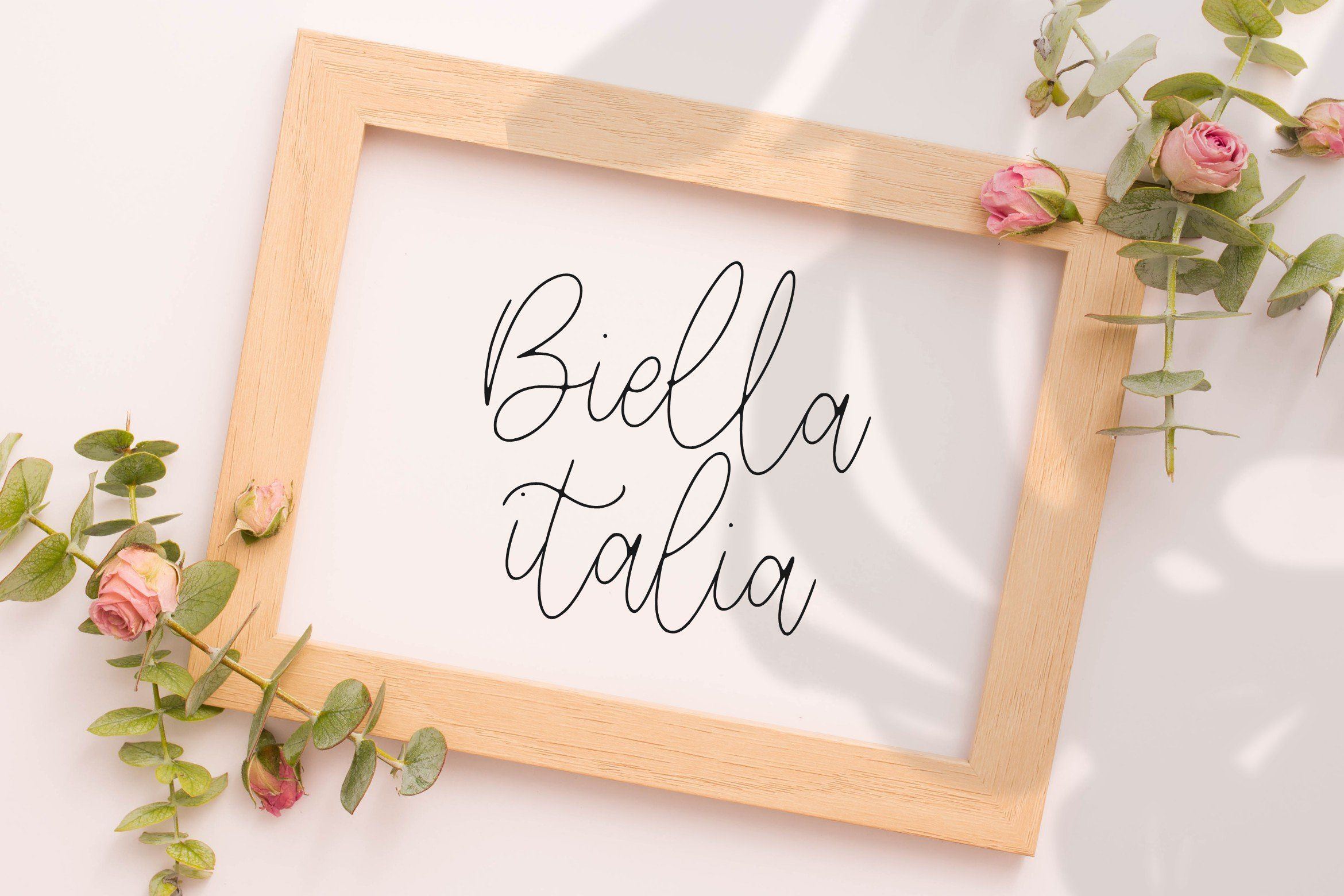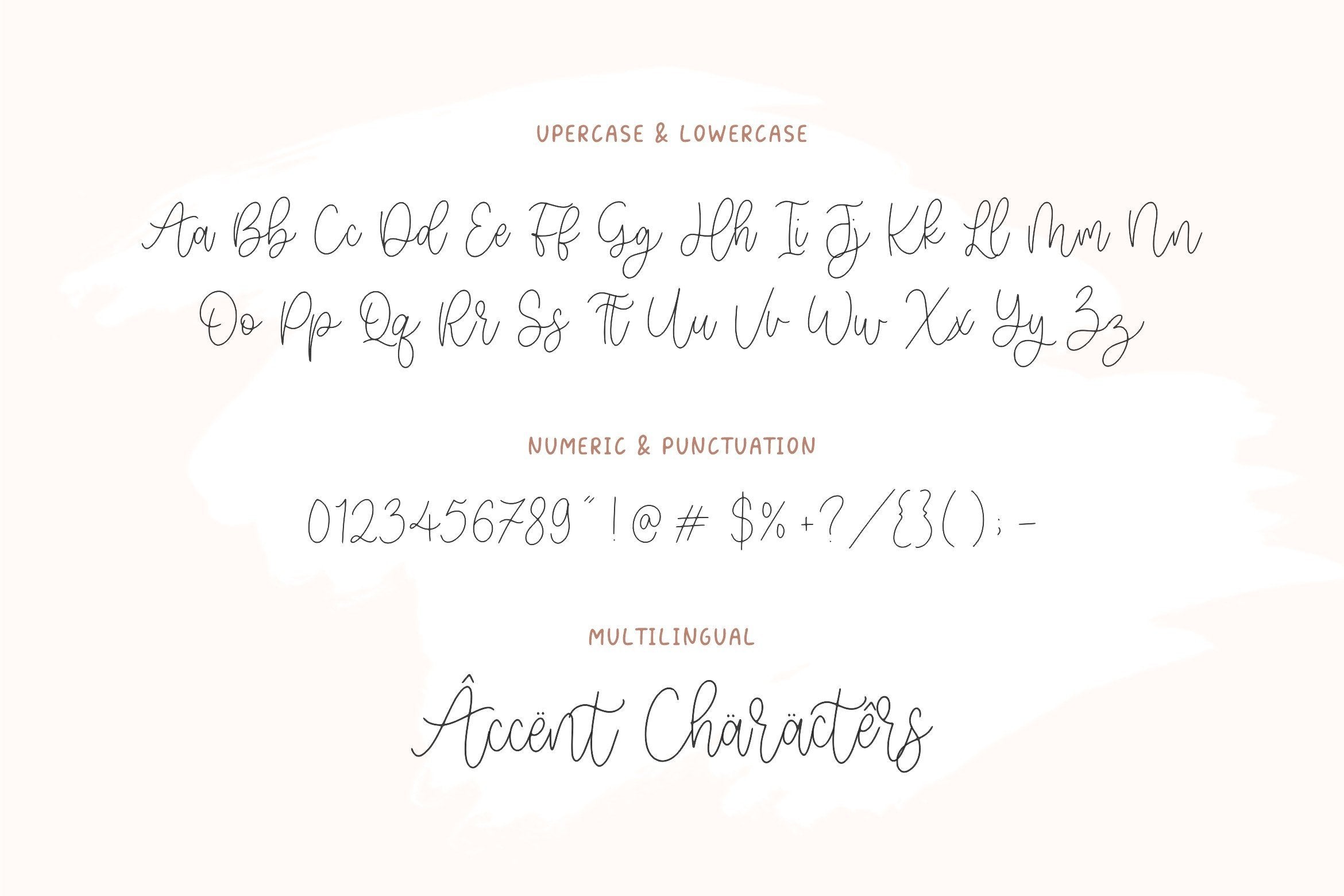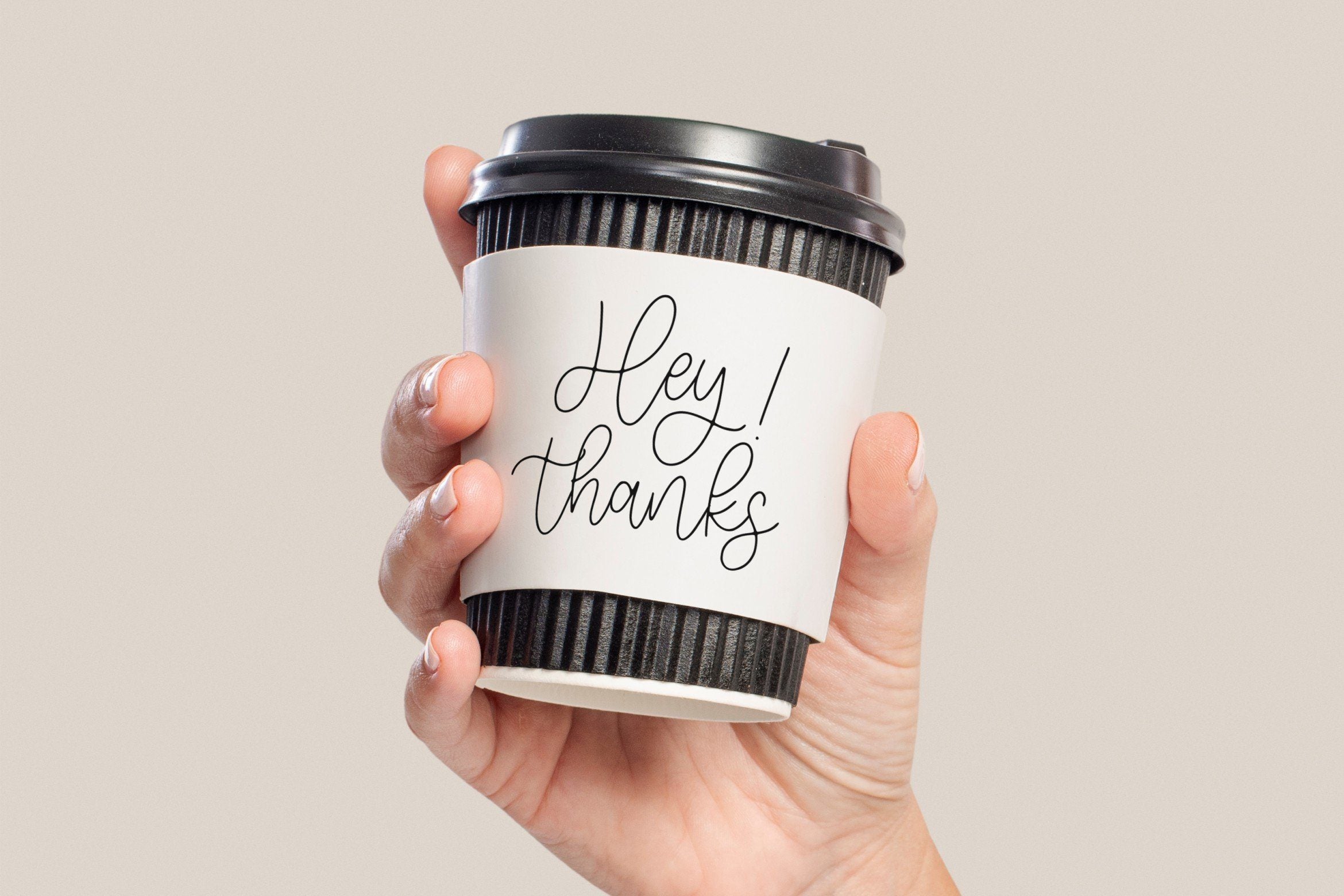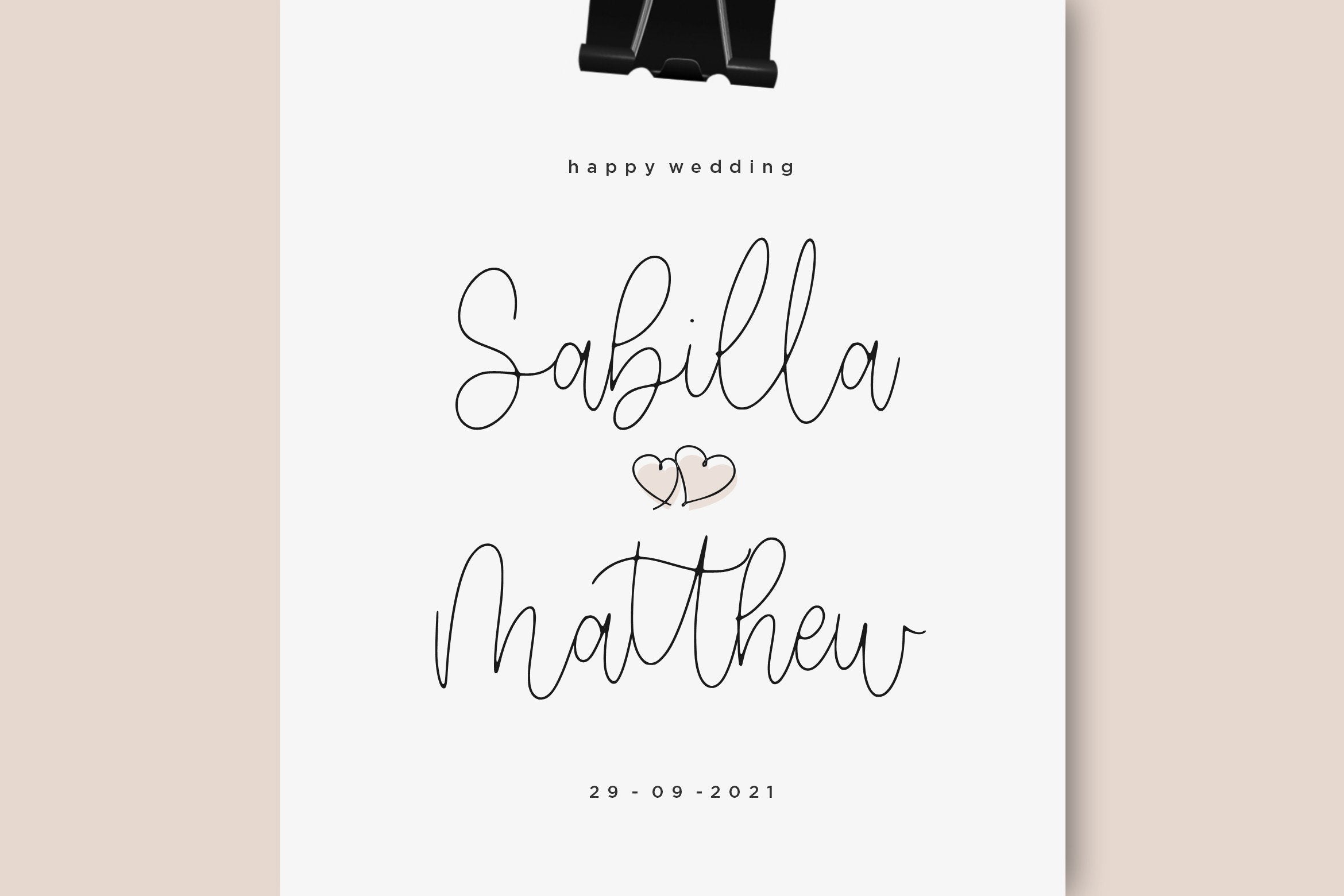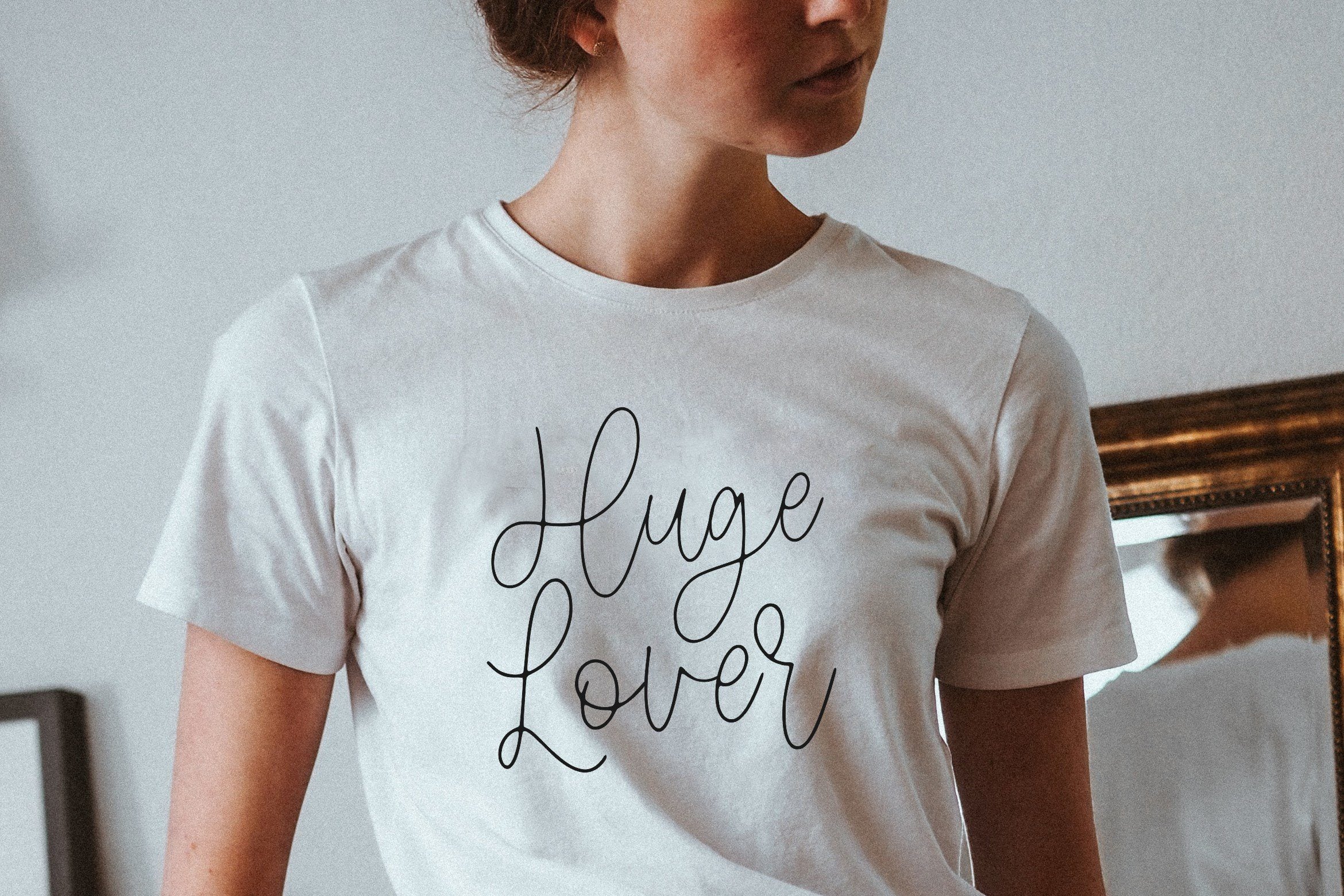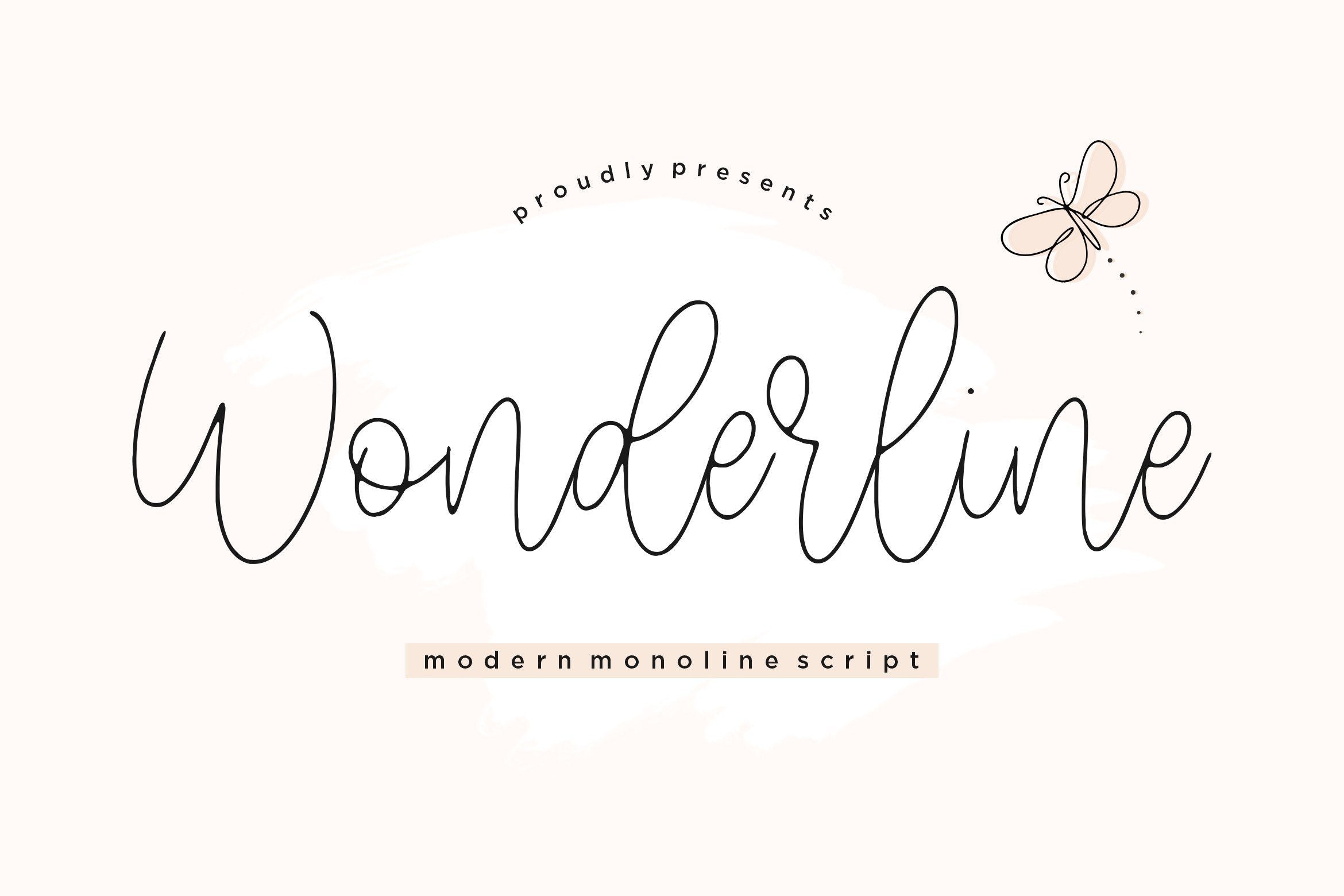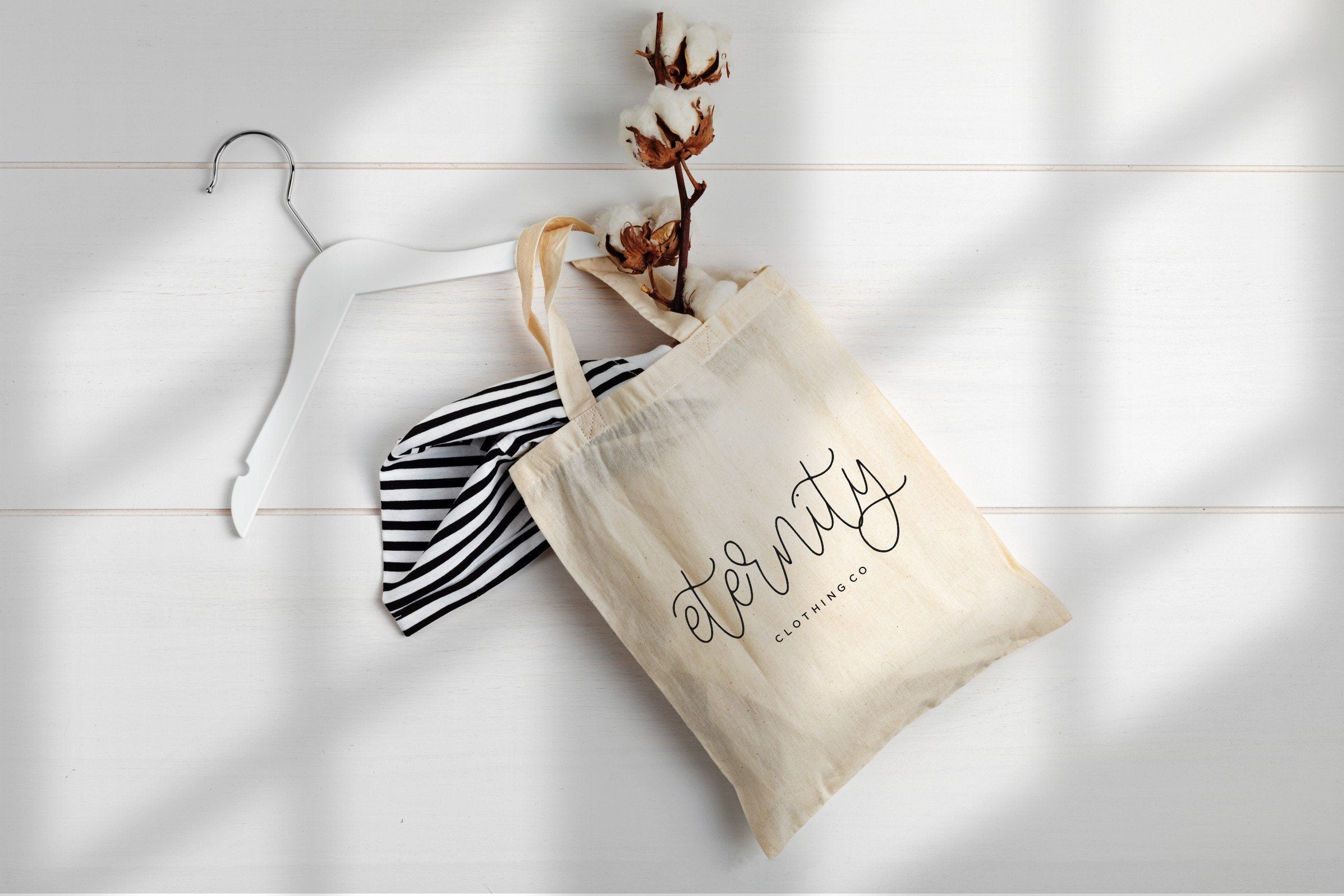
Wonderline Modern Monoline Script Font
About Wonderline Modern Monoline Script Font
Introducing by Balpirick Studio. Proudly Present, Wonderline Font. Wonderline is a Modern Monoline Script Font. Wonderline is a lovely and timeless handwritten font. It is the best choice for creating eye catching logos, branding and quotes. Every letter has a unique and beautiful touch, which will make your design come alive! This font includes TTF, OTF and WOFF, Wonderline aalso multilingual support. Enjoy the font, feel free to comment or feedback, send me PM or email. Thank you!